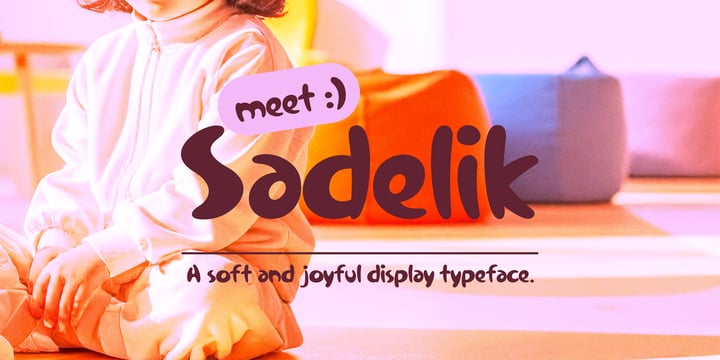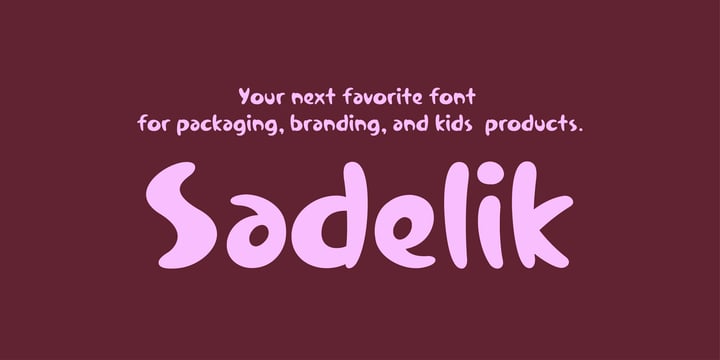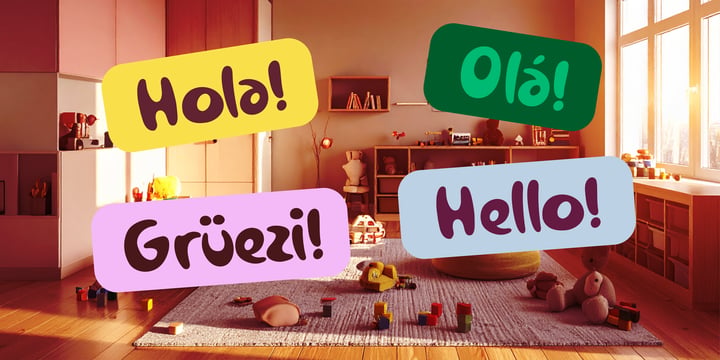
I’m a graphic designer and visual brand developer based in Istanbul, Turkey, with nearly two decades of experience in packaging, editorial, and identity design. Over the years, I’ve created hundreds of labels and branding systems for boutique brands, which sparked a deep appreciation for typography’s power to tell stories.
My interest in type design grew from the need for expressive, functional display fonts tailored for kids' products, modern packaging, and small business branding. I see type not just as decoration, but as a vital part of a brand’s personality.
My work is inspired by clean forms, playful energy, and visual clarity. Each font I design is purpose-driven—focused on usability while adding a handcrafted, emotional touch. I'm passionate about creating fonts that feel approachable yet distinctive, helping creatives communicate their ideas with impact.